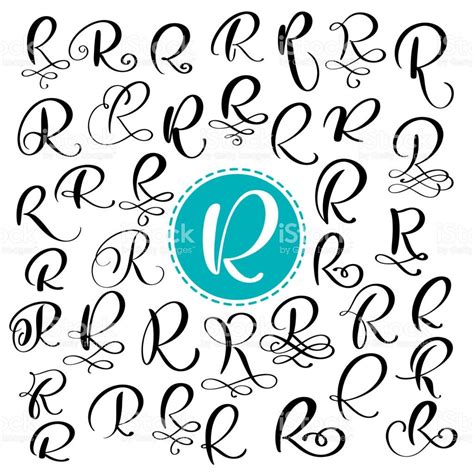
Discover the elegant R Script font. Perfect for wedding invitations, branding, and calligraphy projects. Download this beautiful typeface for your design today.